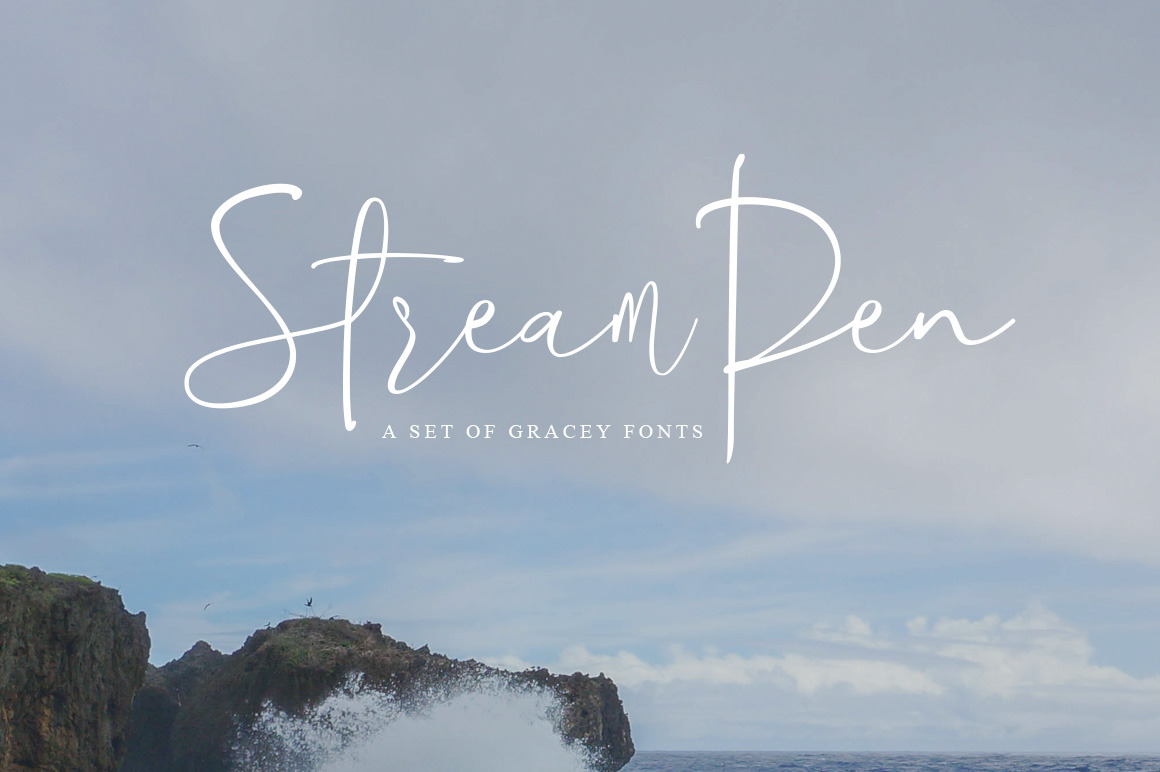
StreamPen Font
StreamPen is a handwritten style signature fonts, with her elegant style and a variety of characters.The that contains upper & lowercase characters and the first or end letter ligature, can meet your design requirements.